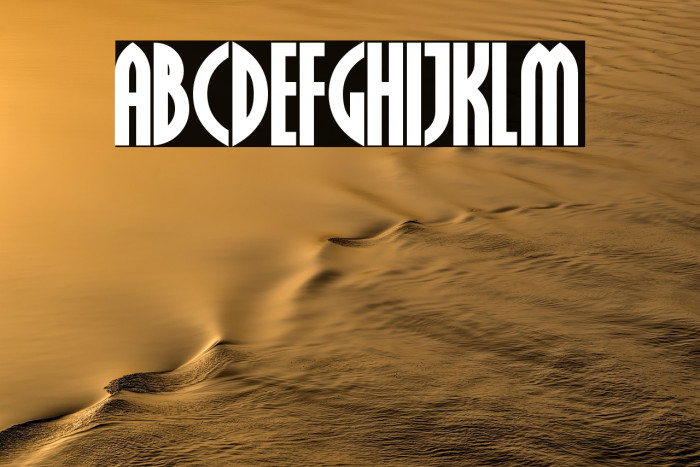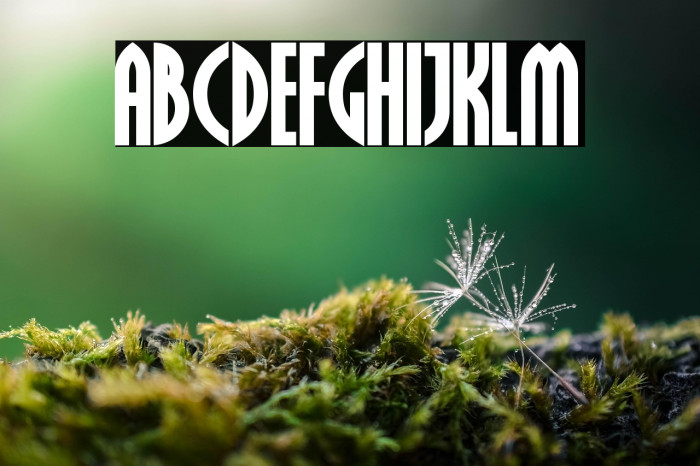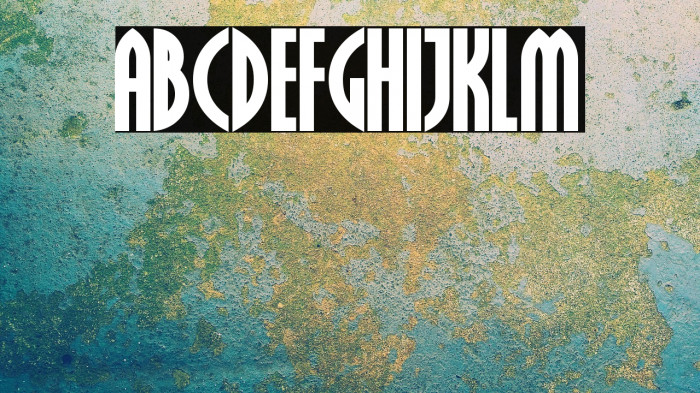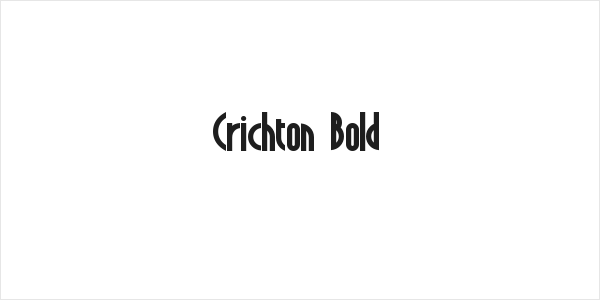
Crichton Bold Font
✎ Art Deco
Crichton Bold Description
This font features a bold and geometric design with a strong presence. The characters are tall and narrow, creating a condensed appearance that emphasizes verticality. The strokes are consistent in width, contributing to a uniform look across all characters. The uppercase letters exhibit a distinct art deco influence, with sharp angles and clean lines. The lowercase letters maintain the same geometric style, ensuring readability while retaining the decorative flair. The numerals are similarly styled, offering a cohesive look throughout. Special characters are designed to match the overall aesthetic, making this font suitable for various creative applications.
| Categories | Art Deco |
| Overall Style | Art Deco, Decorative |
| Proposed Projects | Ideal for posters, branding, and editorial design where a strong, decorative typeface is needed. |